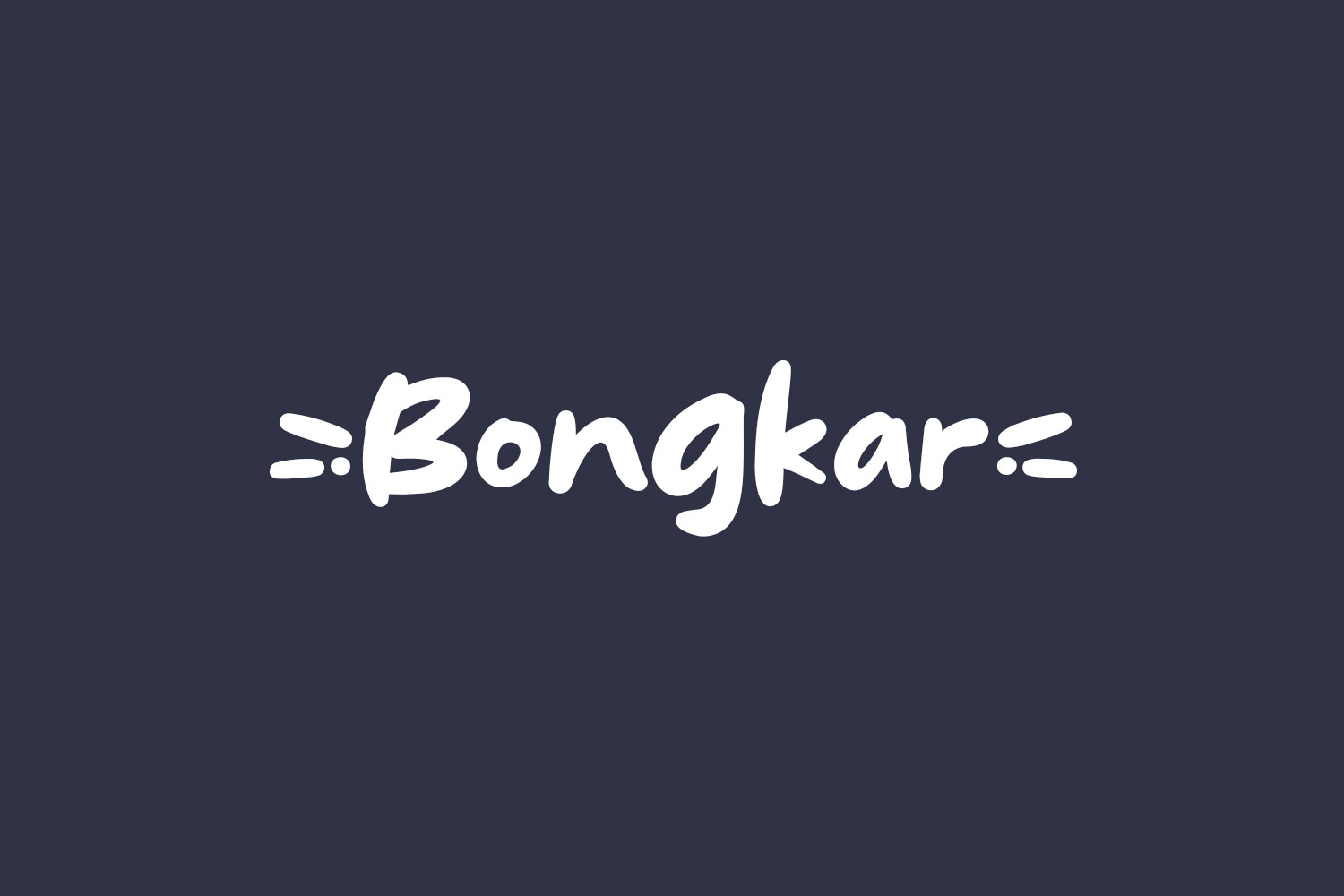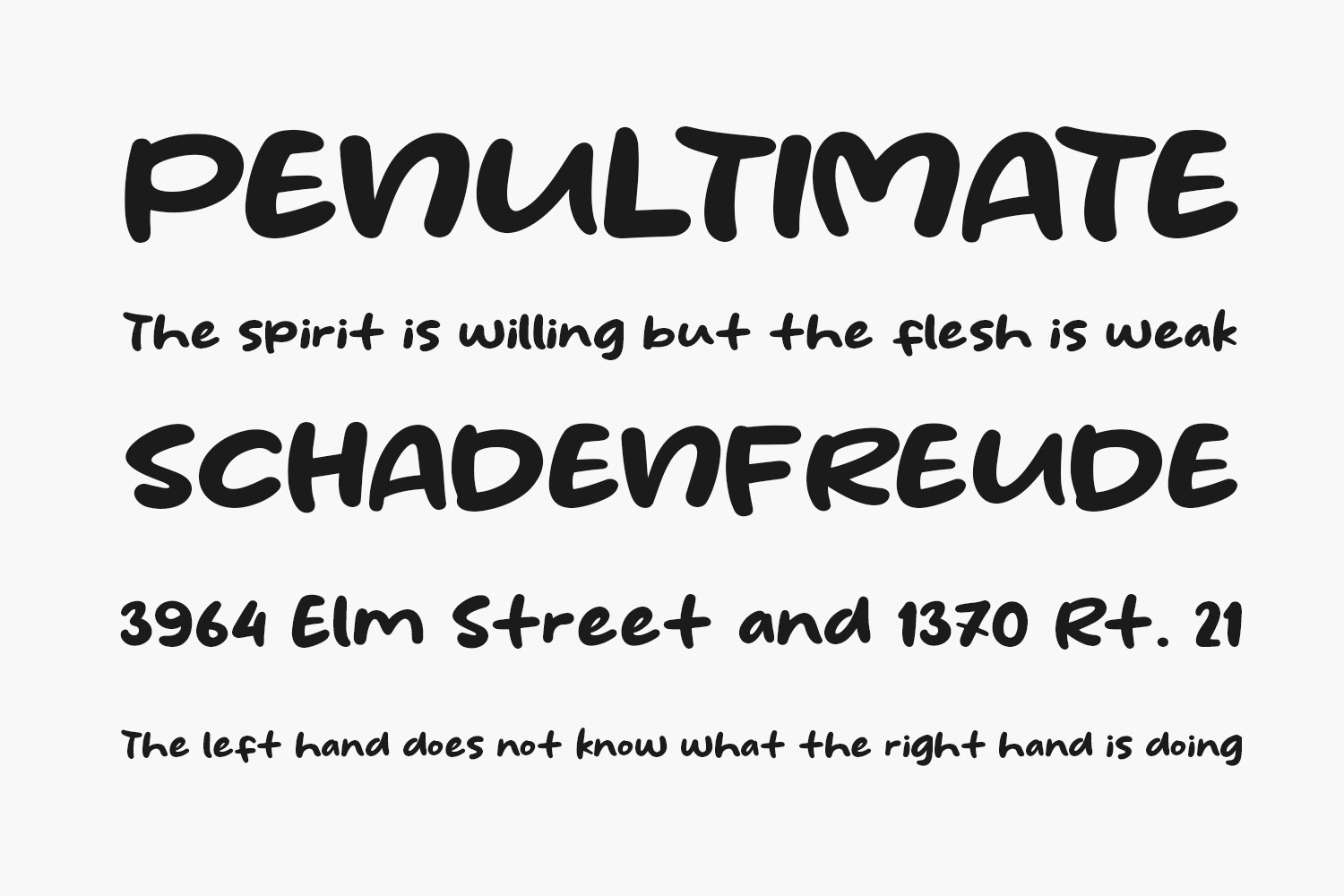
Bongkar Free Font is a modern and fancy display font perfect for posters, logos, magazines, book covers, banners, and many more. Bongkar Free Font was designed by Khurasan and is free for personal or commercial use.